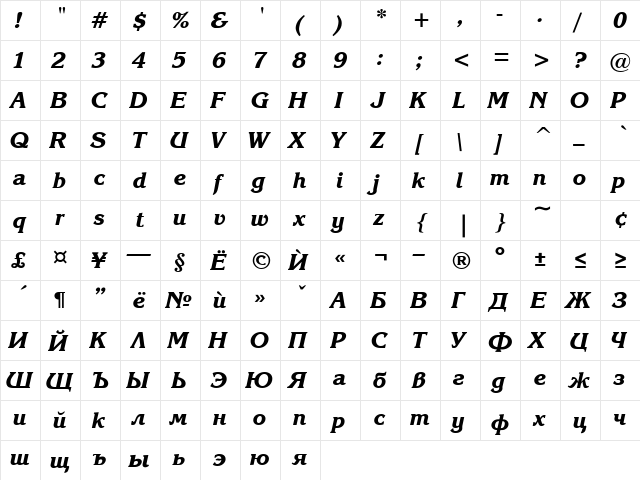
Karina Black Rus Italic
Design Context for Karina Black Rus Typeface
Karina Black Rus is a composed and adaptable typeface that performs quietly and consistently across a wide range of design contexts. The slanted form adds forward momentum and visual energy.
Pro Tip: Use Karina Black Rus for emphasis, pull quotes, and subheadings where its slanted energy can add rhythm to the layout.